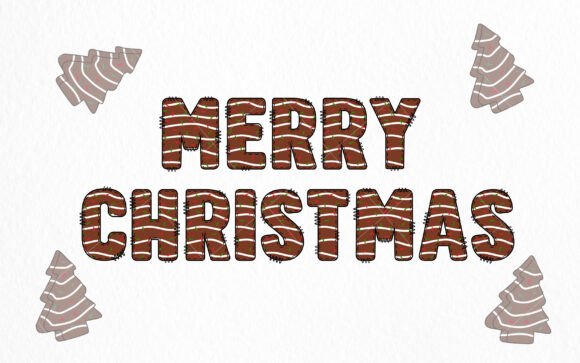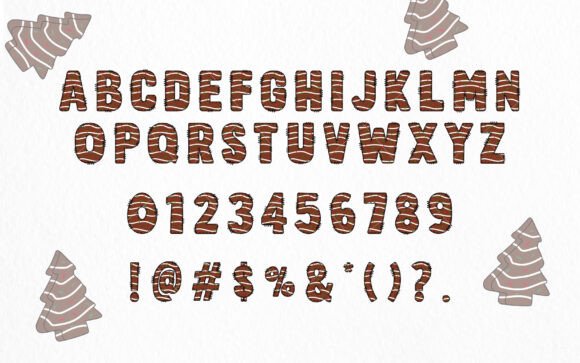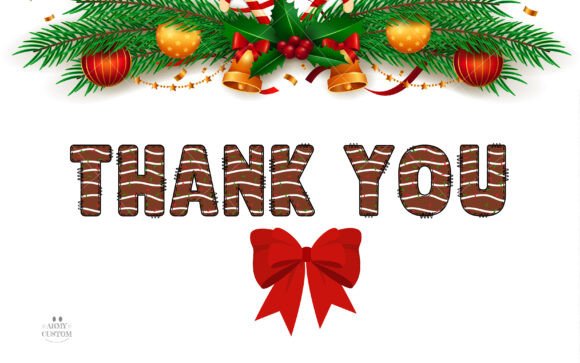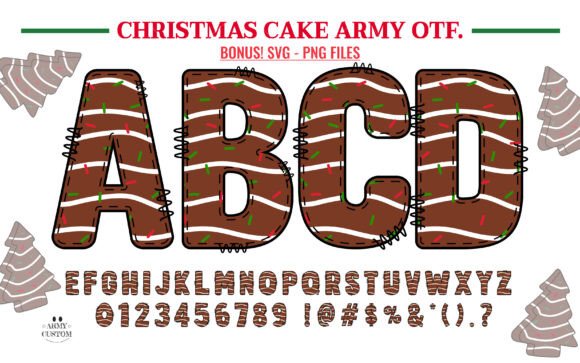
Experience the Magic of Christmas with the Christmas Cake Army Font
The holiday season is upon us, and what better way to spread cheer than with a font that’s as festive as it is functional? Look no further than the Christmas Cake Army Font, a vibrant and playful typeface that’s sure to add a dash of holiday magic to your designs. In this article, we’ll dive into the world of Christmas Cake Army Font, exploring its features, benefits, and uses, as well as provide you with expert tips on how to make the most of this amazing font.
What is Christmas Cake Army Font?
Christmas Cake Army Font is a unique and eye-catching decorative font that’s specifically designed to capture the spirit of the holiday season. With its bright colors and playful design, this font is perfect for adding a touch of festive flair to your designs, whether you’re creating holiday cards, decorations, or promotional materials.
Immaculately crafted, Christmas Cake Army Font is a masterpiece of typographic excellence, turning even the most mundane text into a visually stunning work of art. Whether you’re a designer, crafter, or simply someone who loves the holiday season, this font is sure to delight.
Key Features of Christmas Cake Army Font
- Vibrant Colors: Christmas Cake Army Font is available in a range of colors, adding a splash of excitement to your design palette.
- Distinctive Design: This font features a unique and playful design that’s sure to stand out from the crowd.
Tips and Tricks for Using Christmas Cake Army Font
To get the most out of Christmas Cake Army Font, here are a few expert tips and tricks:
- Experiment with Colors: Don’t be afraid to try out different color combinations to find the perfect look for your design.
- Mix and Match: Combine Christmas Cake Army Font with other fonts and design elements to create a unique and eye-catching look.
- Pay Attention to Size: Make sure to adjust the font size to suit your design, as the font can be quite bold.
Christmas Cake Army Font is a truly special font that’s sure to add a touch of holiday magic to your designs. With its vibrant colors, playful design, and wide compatibility, this font is perfect for designers, crafters, and anyone looking to spread some holiday cheer.